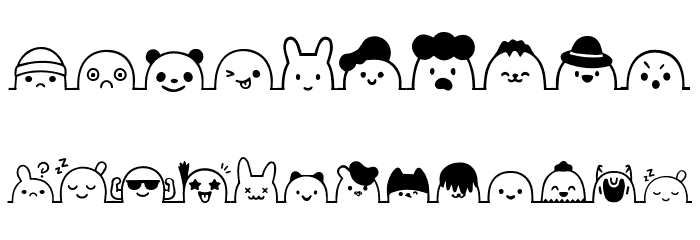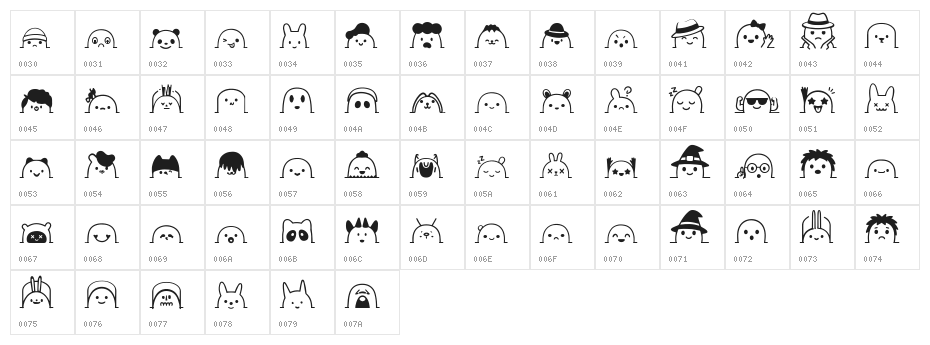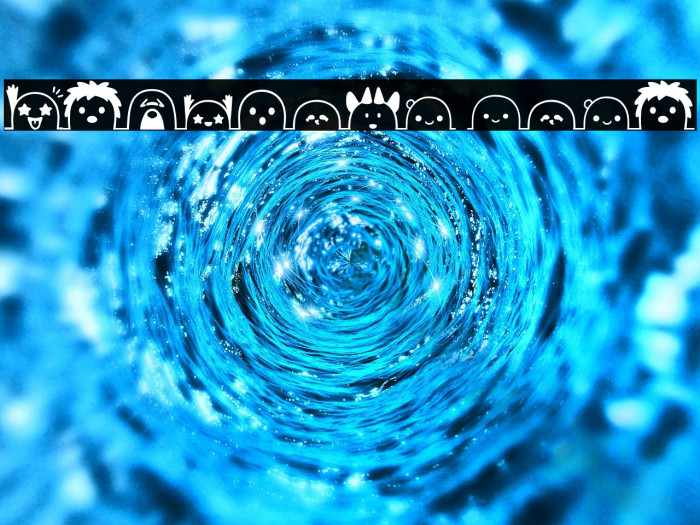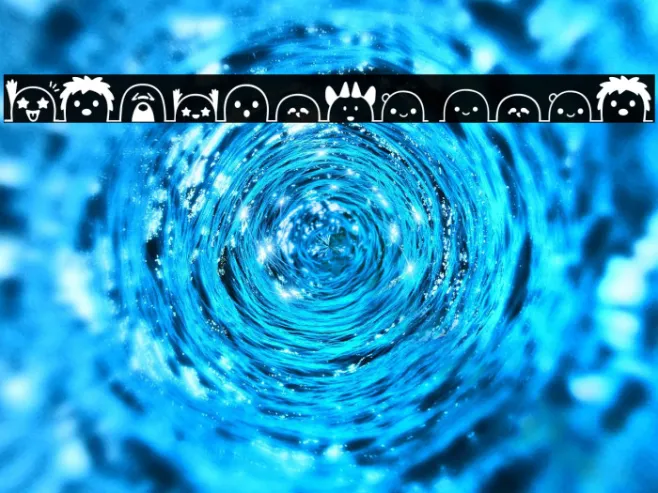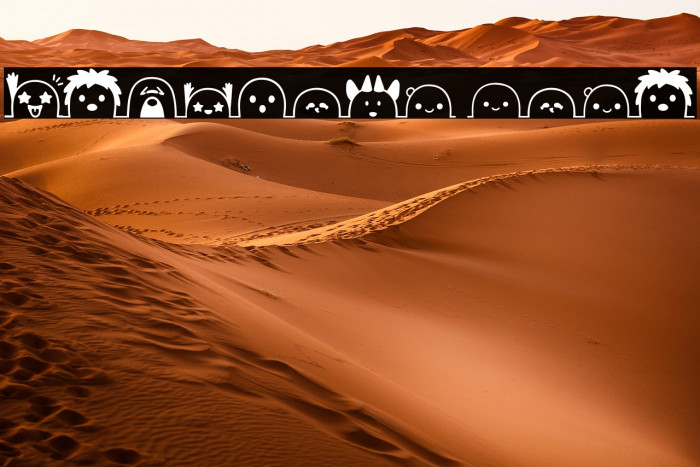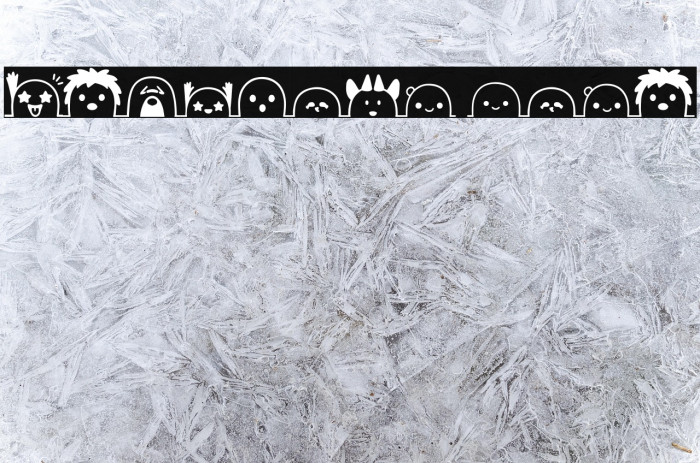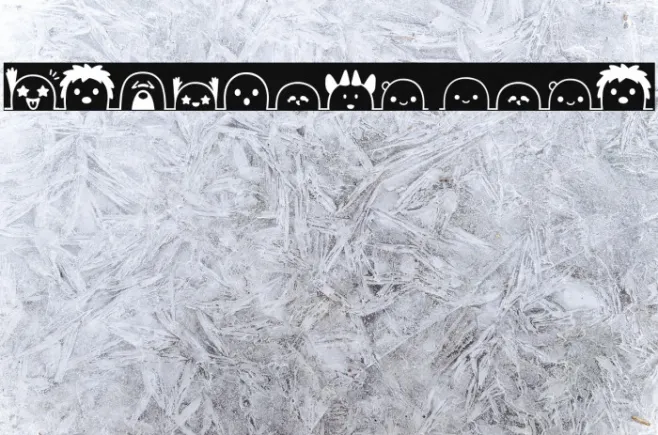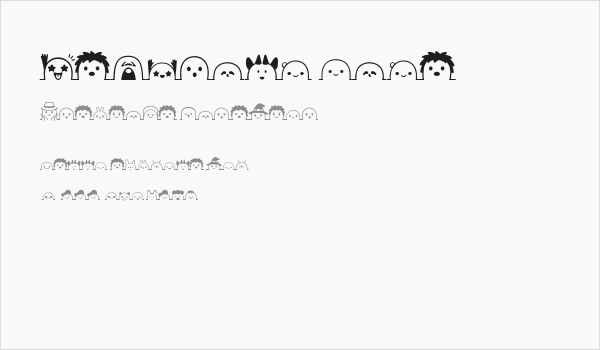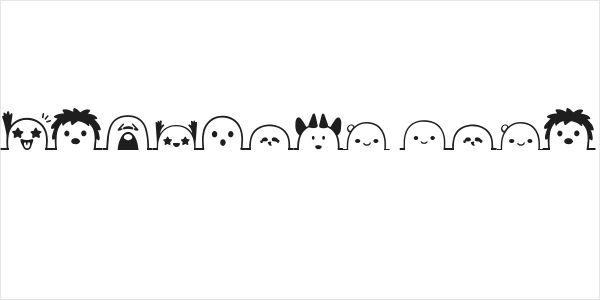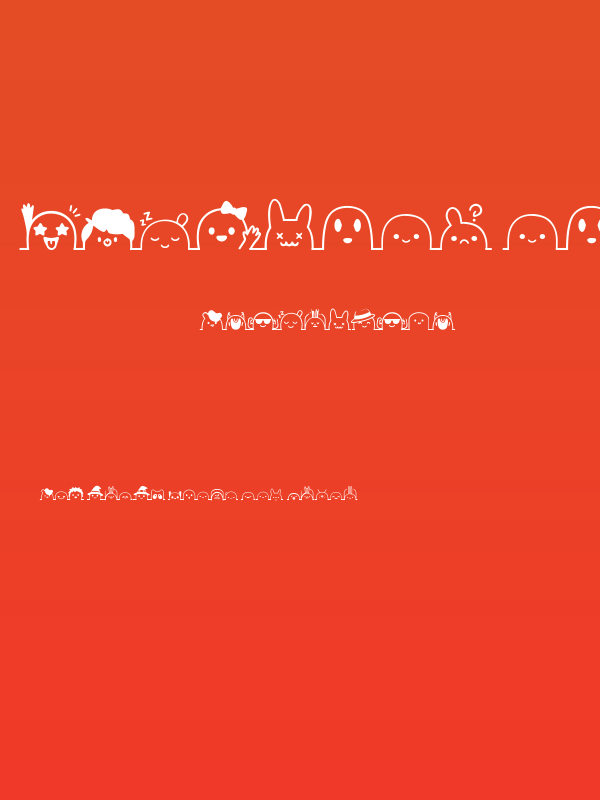
Qezbriln Line Font
Qezbriln Line Description
A playful, decorative font composed of rounded, cartoon-like characters with various facial expressions and accessories, each glyph resembling a unique doodle or emoji. The style is whimsical and highly illustrative, making each letter or symbol appear as a distinct character.
Overall StyleDecorative, Playful, Cartoonish
Use CaseLogos, Headlines, Posters, Children's content
Proposed ProjectsChildren's books, playful branding, party invitations, greeting cards, educational materials, comic strips.